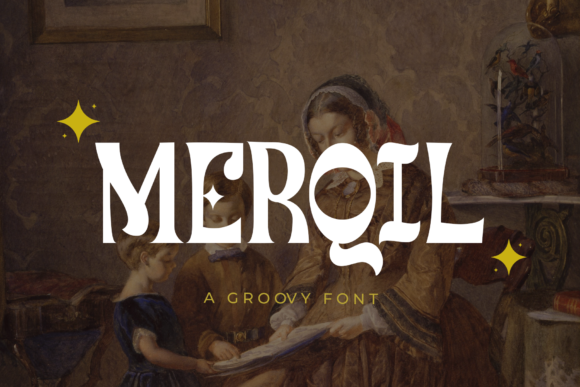
Journey back to an era of vintage charm and modern aesthetics with Merqil Font, the captivating display font that will transform your creative visions into stunning realities. This extraordinary typeface, crafted by the ingenious minds at Authentic Studio, strikes a perfect balance between retro appeal and contemporary elegance, making it an irresistible choice for designers, marketers, and creative professionals seeking to make a lasting impact.
Unleash the boundless potential of Merqil Font and watch as your logos, branding, and quotes come alive with a vibrant energy that captivates and engages your audience. Each meticulously designed letter exudes a unique personality, adding depth and character to your designs. Whether you're crafting a bold and eye-catching logo, establishing a memorable brand identity, or sharing inspirational quotes with the world, Merqil Font is your ultimate creative companion.
Step into a world where nostalgia meets innovation, where the timeless allure of vintage aesthetics blends seamlessly with the sleek sophistication of modern design. As you explore the diverse glyphs of Merqil Font, you'll discover a treasure trove of creative possibilities, limited only by the boundaries of your imagination. Transform ordinary text into extraordinary statements, captivating your audience with a visual experience that lingers in their minds long after they've encountered your designs.
Picture your brand adorned with the distinctive charm of Merqil Font, standing out from the crowd with an identity that exudes individuality and style. Create logos that command attention, slogans that resonate, and quotes that inspire, all while leaving an indelible mark on the hearts and minds of your customers. The versatility of Merqil Font extends far beyond logos and branding, making it an invaluable asset for creating captivating social media graphics, eye-catching advertisements, and stunning website designs.
Embark on a creative journey with Merqil Font, where the boundaries between imagination and reality blur, and where your designs transcend the ordinary to become truly extraordinary. Let the magic of this remarkable display font ignite your passion and propel your creative endeavors to new heights. Unleash the power of Merqil Font today and unlock a world of endless possibilities.